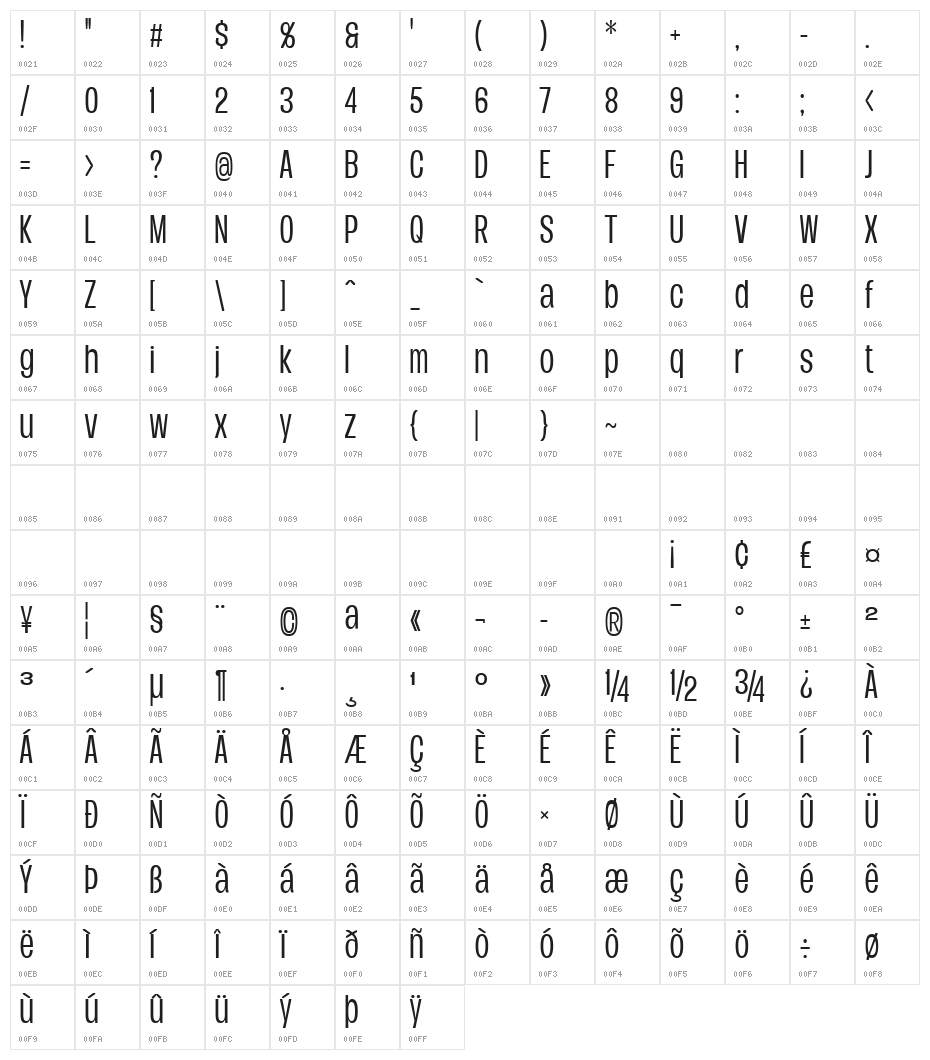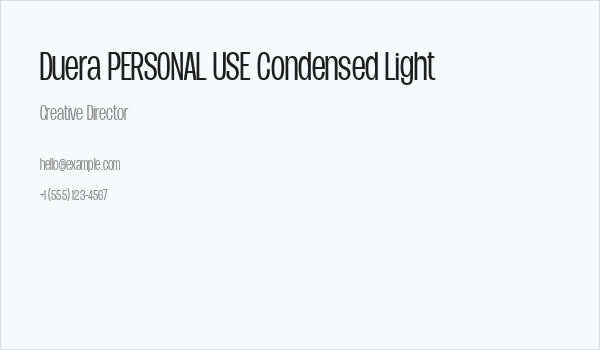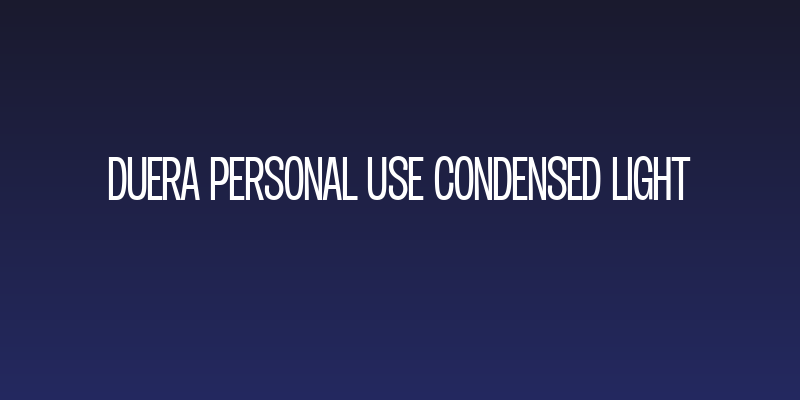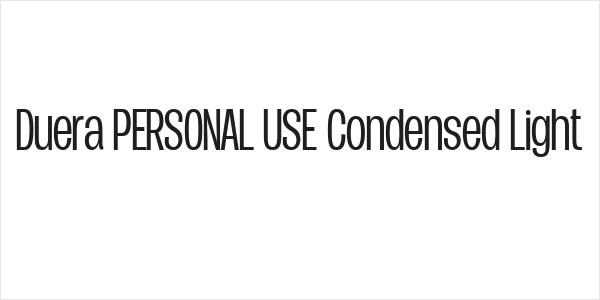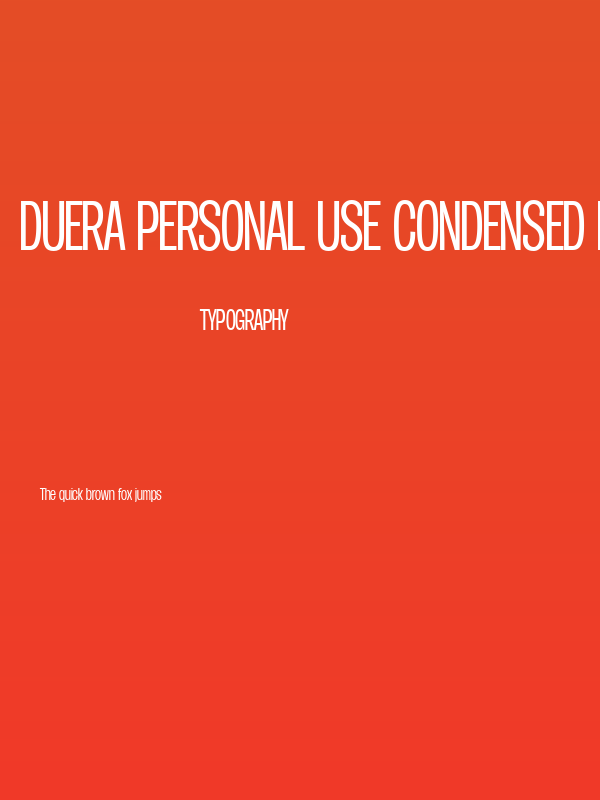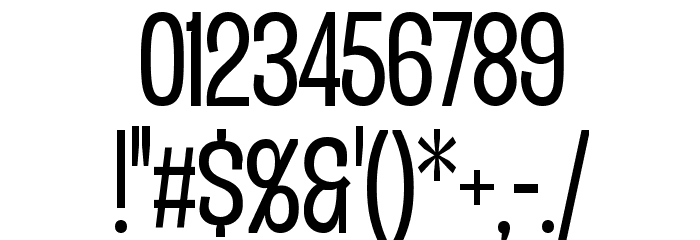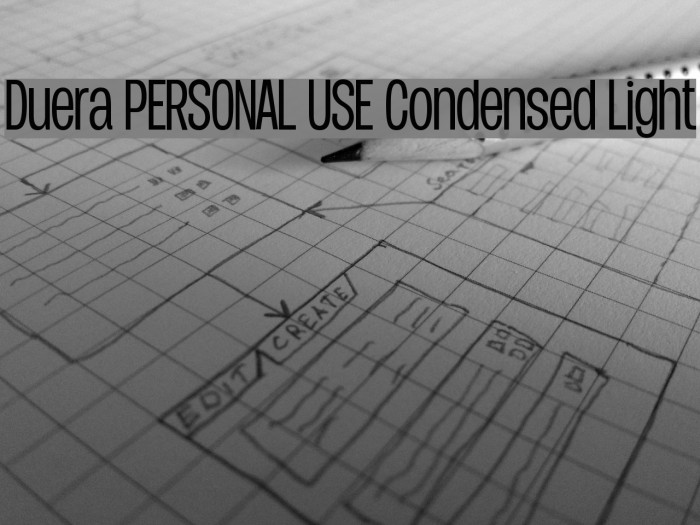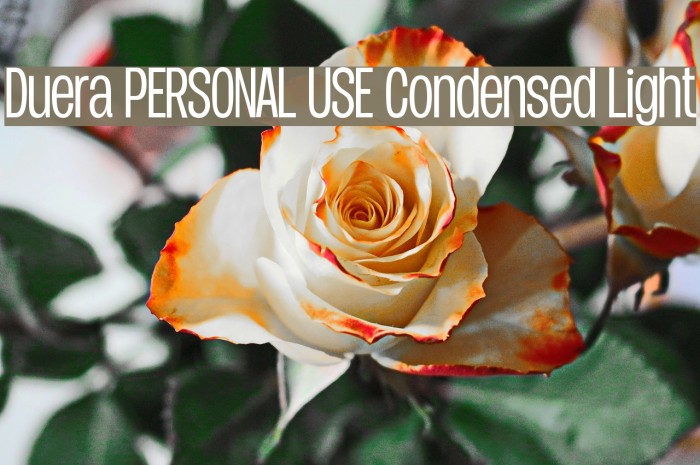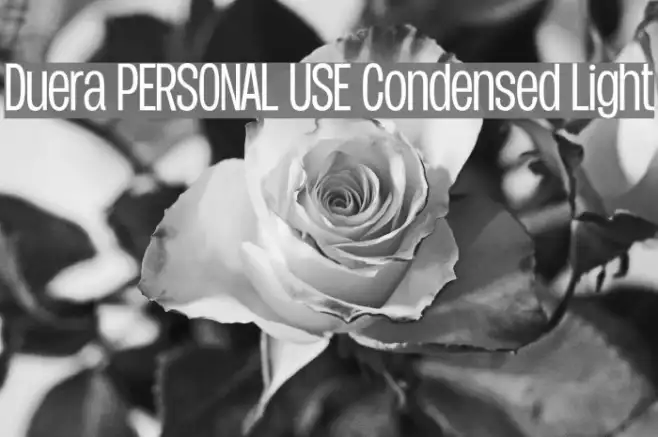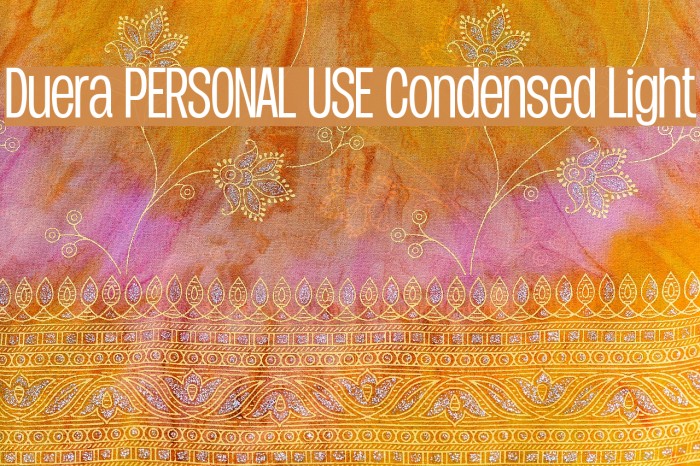
Duera PERSONAL USE Condensed Light Font
Duera PERSONAL USE Condensed Light Description
This font features a sleek, modern design with a condensed structure that emphasizes verticality. The characters are tall and narrow, creating a streamlined appearance that is both elegant and efficient. The light weight of the strokes adds a sense of delicacy and sophistication, making it suitable for contemporary design projects. The font maintains a consistent line thickness, offering a clean and uniform look. Its minimalistic style is enhanced by the absence of serifs, contributing to a modern aesthetic that is versatile for various applications. The spacing between characters is tight, which further accentuates its condensed nature.
| Proposed Projects | Ideal for branding, advertising, and editorial design where a modern and sleek appearance is desired. |